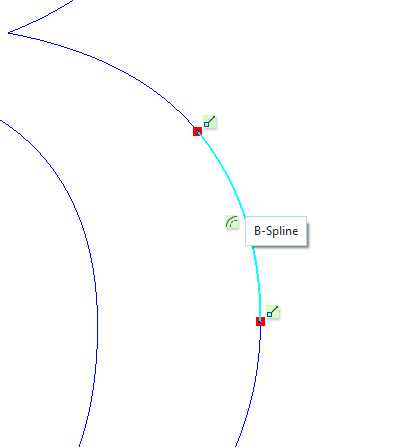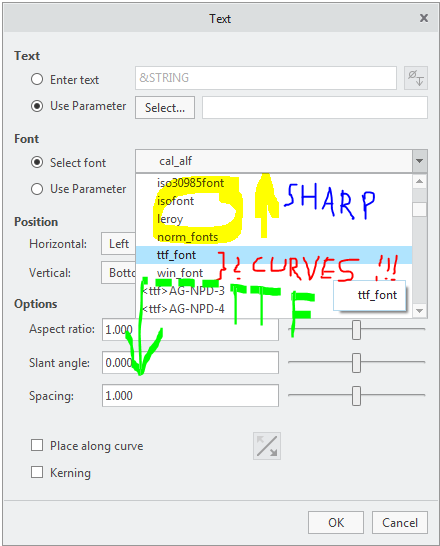
"ttf_font" and "win_font" defined with curves (B-spline)
I'm plaing with fonts at the moment and found that not all PTC font are build with lines!
"ttf_font" and "win_font" are defined also with splines / curves:
But how is this possible?
I programmed in the past also own PTC font but it was only possible to have lines!
Thanks Martin for your valuable hint - I think this is the way how it is implemented. PTC should explain in details in HELP how this rule works. My reasoning is that win_font will use current Windows system font, while ttf_font is just example how to convert any ttf font into PTC font.
This is true. True Type Fonts (TTF) require a different module to add their geometry to the model/drawing than the original PTC font definition does.
One big difference is that True Type Fonts are closed loops so that an engraver would have to make two passes for each portion of the font while PTC fonts can be open.
In a TTF definition, the letter L will have 6 segments - One up the vertical leg, a short part across the top, one down the vertical leg, one across the horizontal leg, a short part across the right end, and one back to the first vertical.
In a PTC font, there will be 2 segments - a single vertical and a single horizontal segment.
Ok the case is why those two fonts not ttf but still PTC definition: "ttf_font" and "win_font" can have curves?
Creo4_M030\Creo 4.0\M030\Common Files\text\usascii\ttf_font.ndx contains following lines:
cgomg.ttf
special.fnt
Creo4_M030\Creo 4.0\M030\Common Files\text\usascii\win_font.ndx contains following lines:
sys/arial.ttf
special.fnt
This means both files are something like links to TTF fonts.
Thanks Martin for your valuable hint - I think this is the way how it is implemented. PTC should explain in details in HELP how this rule works. My reasoning is that win_font will use current Windows system font, while ttf_font is just example how to convert any ttf font into PTC font.